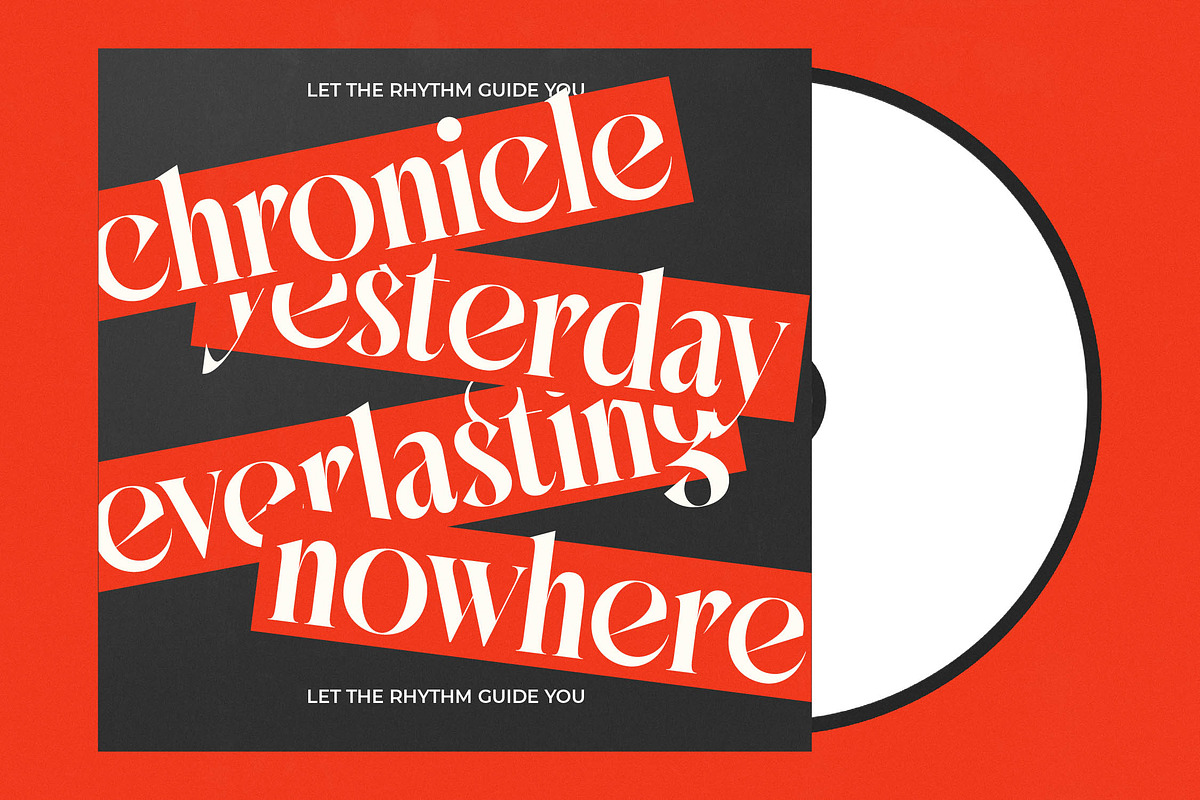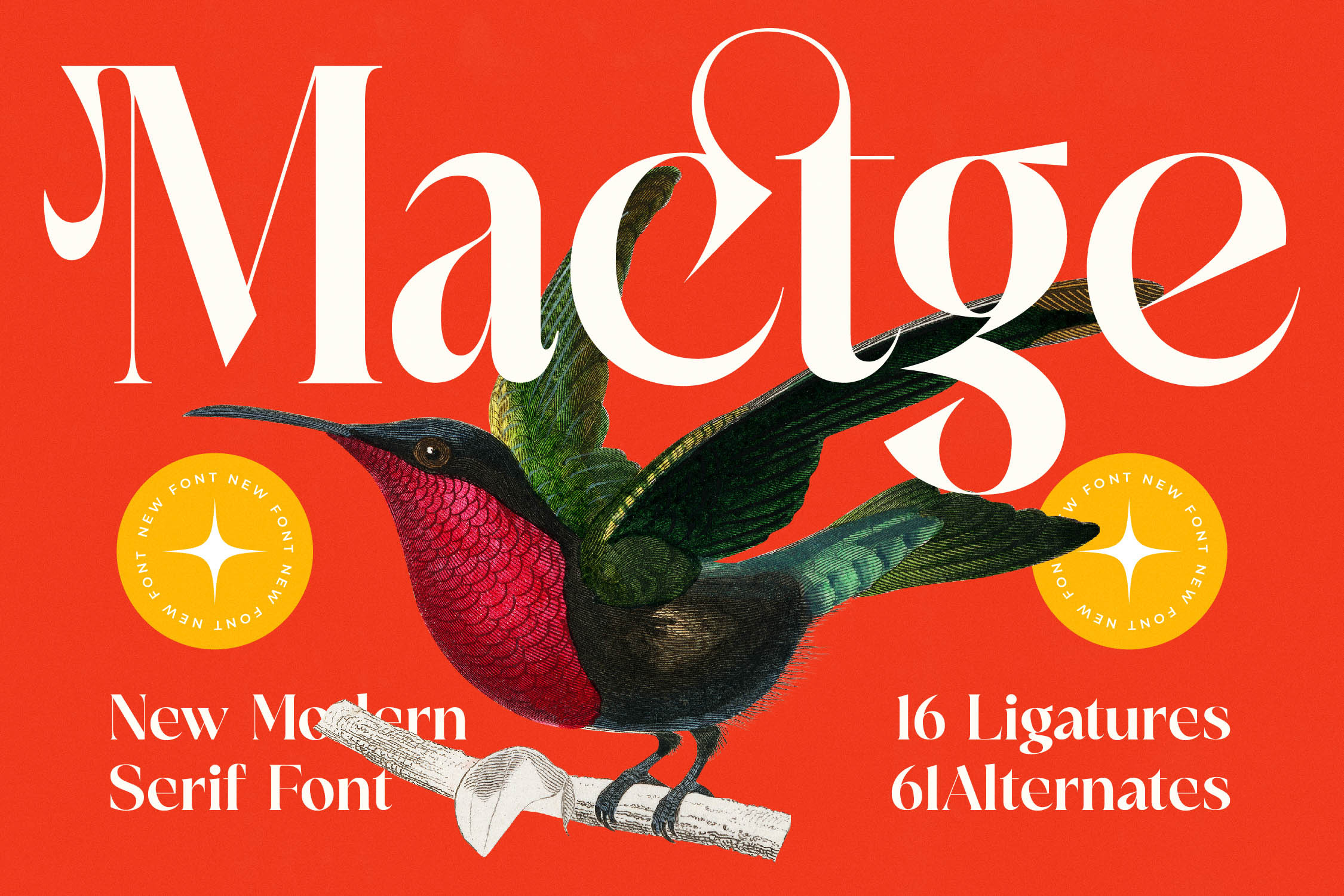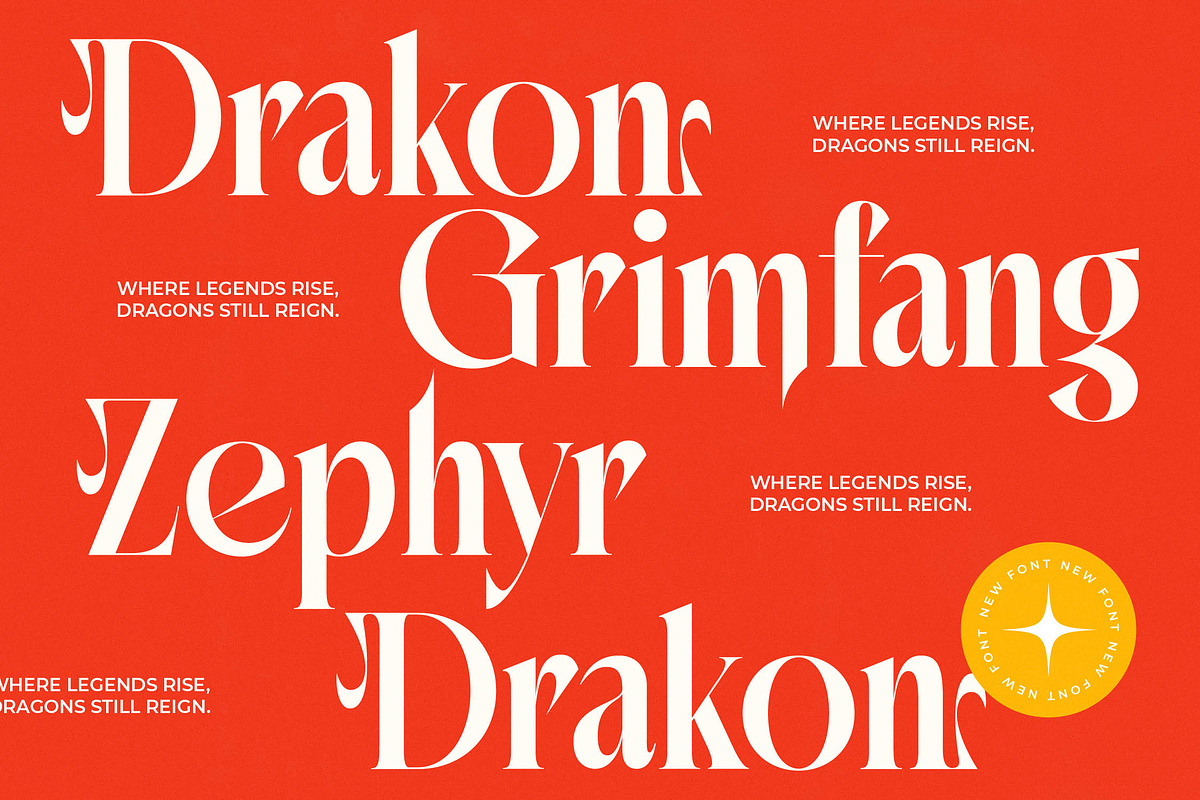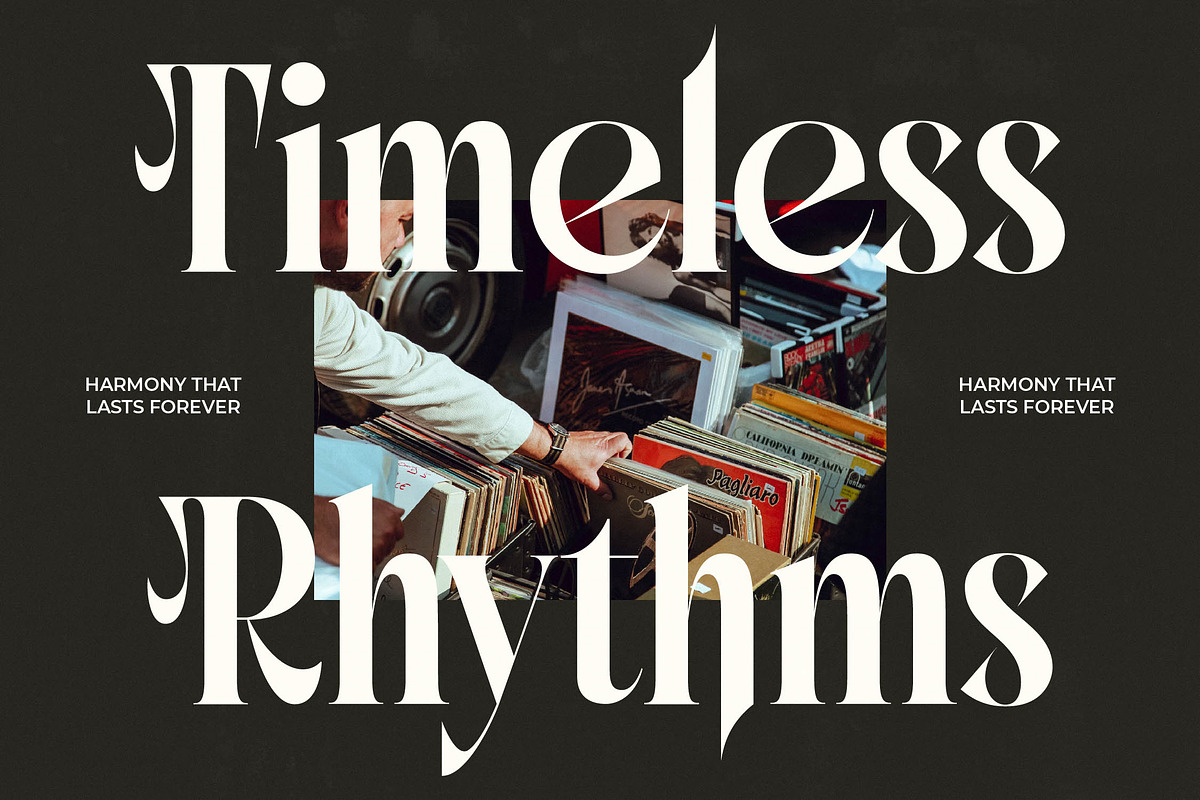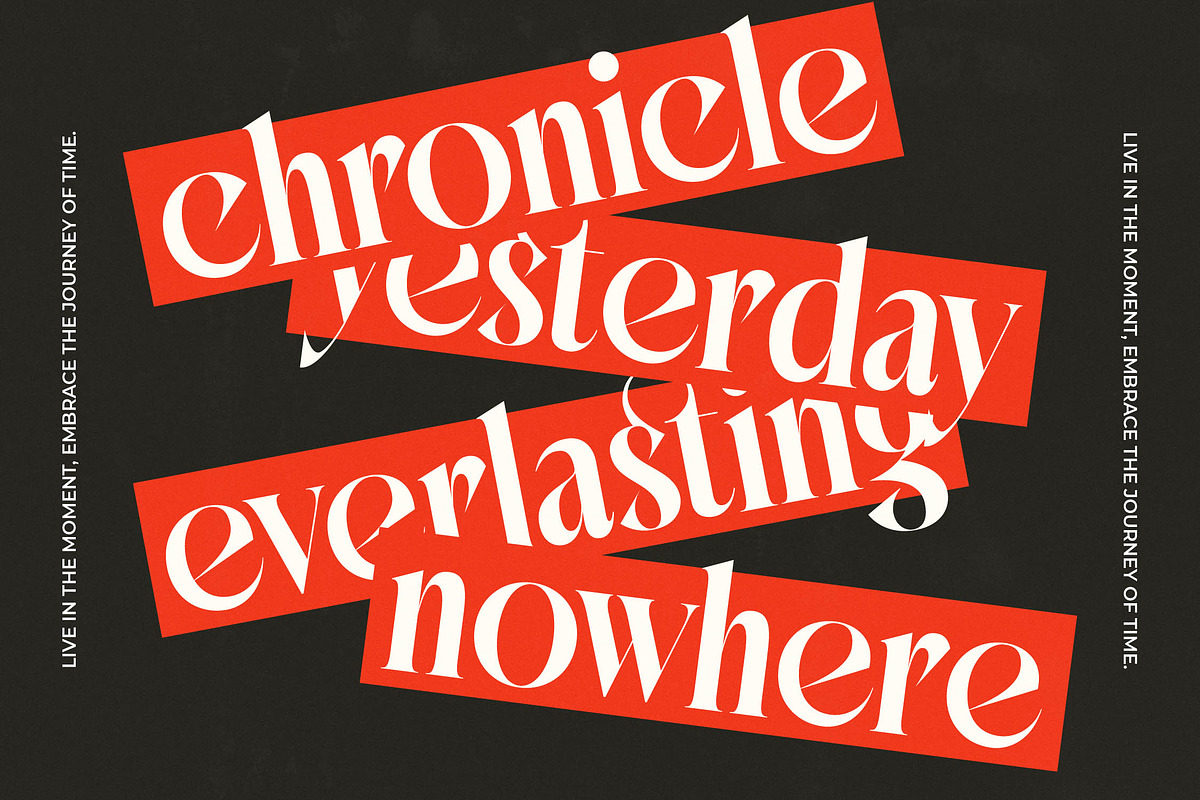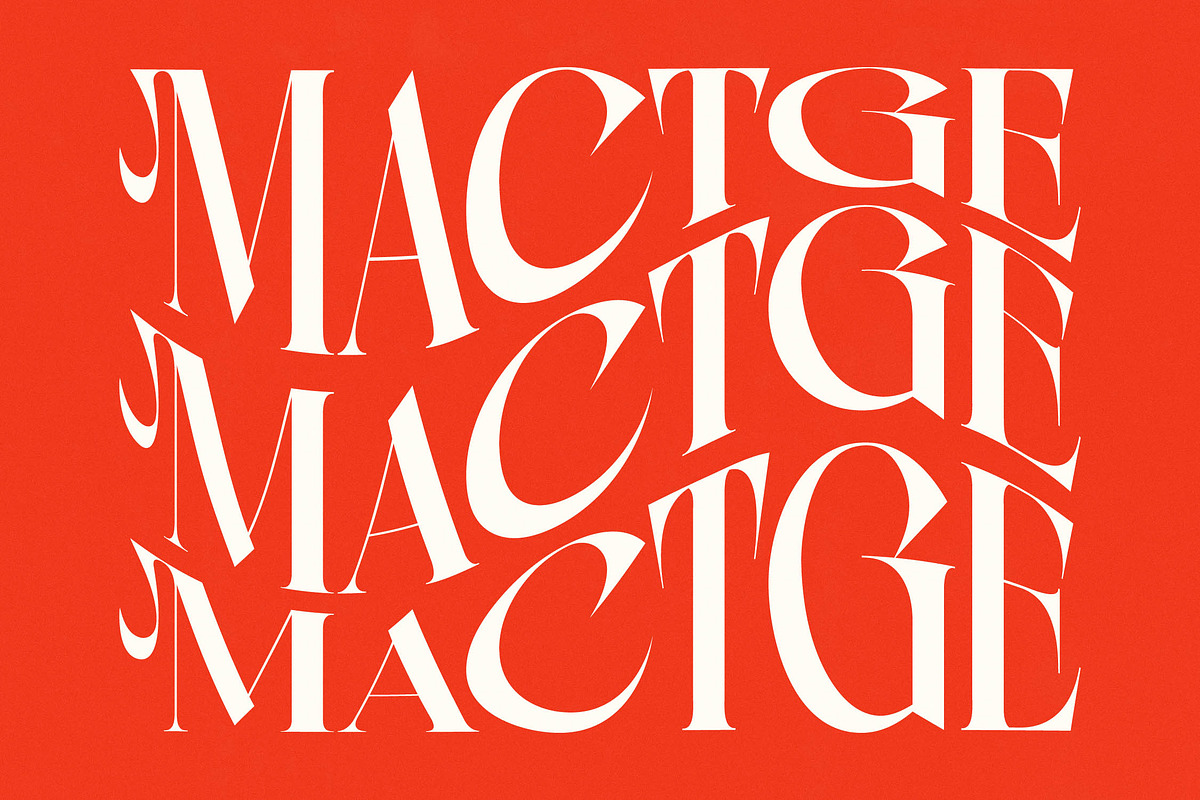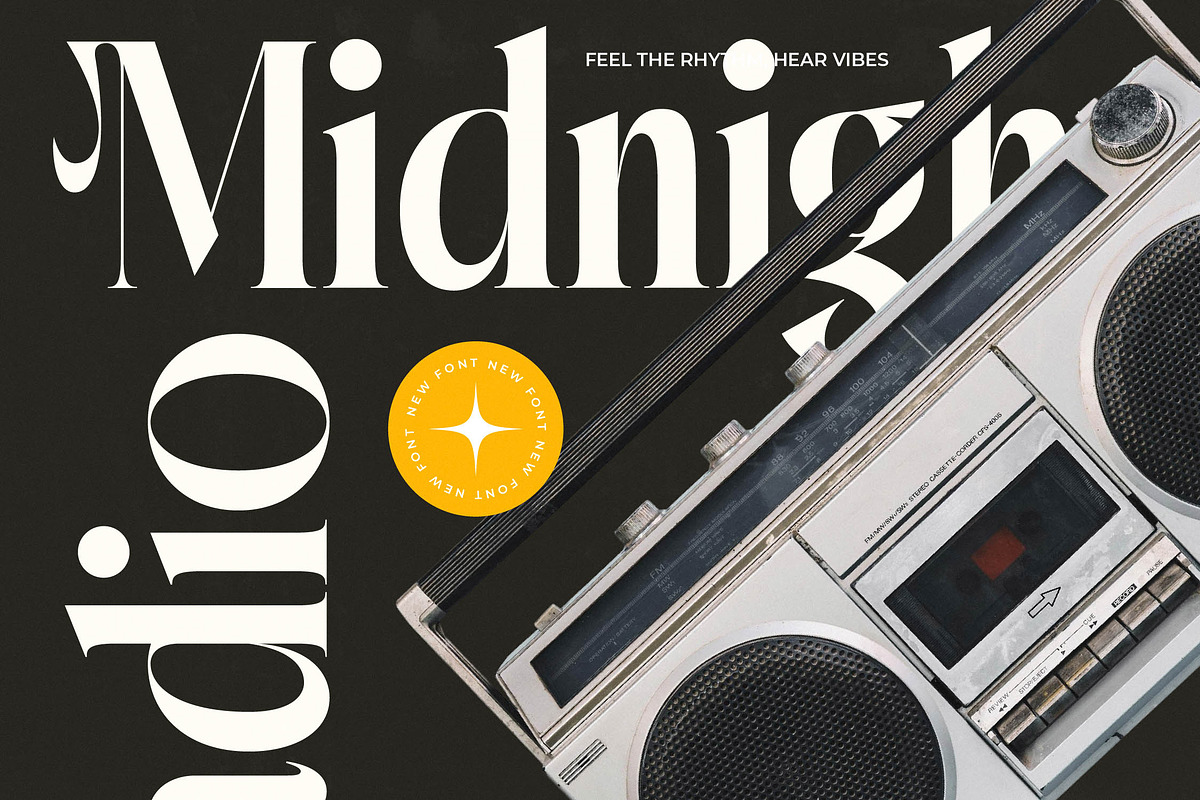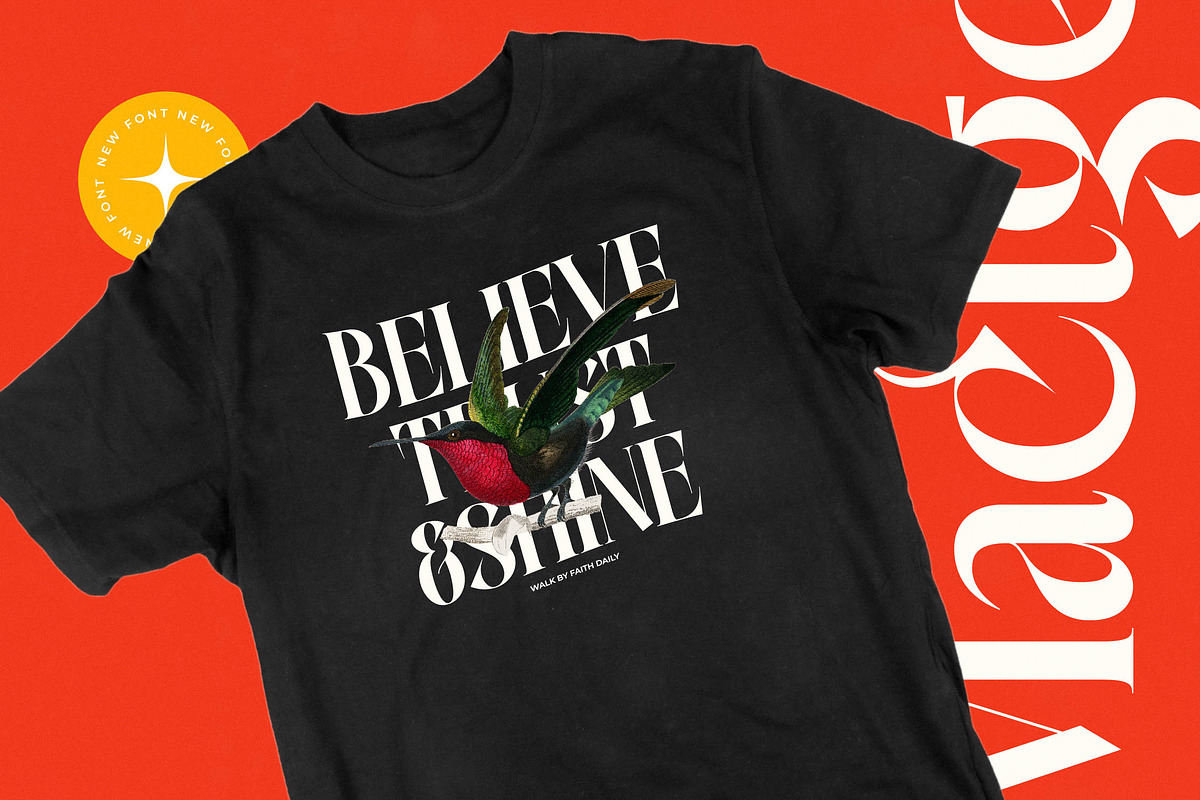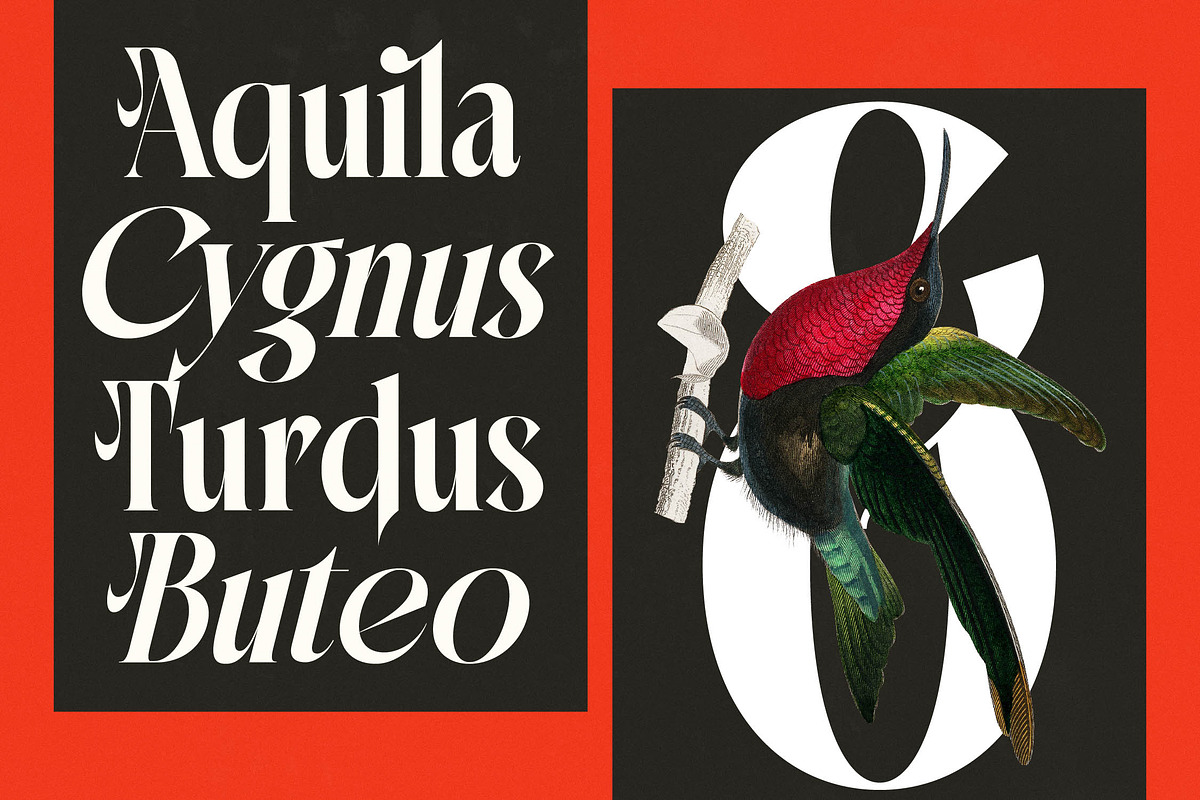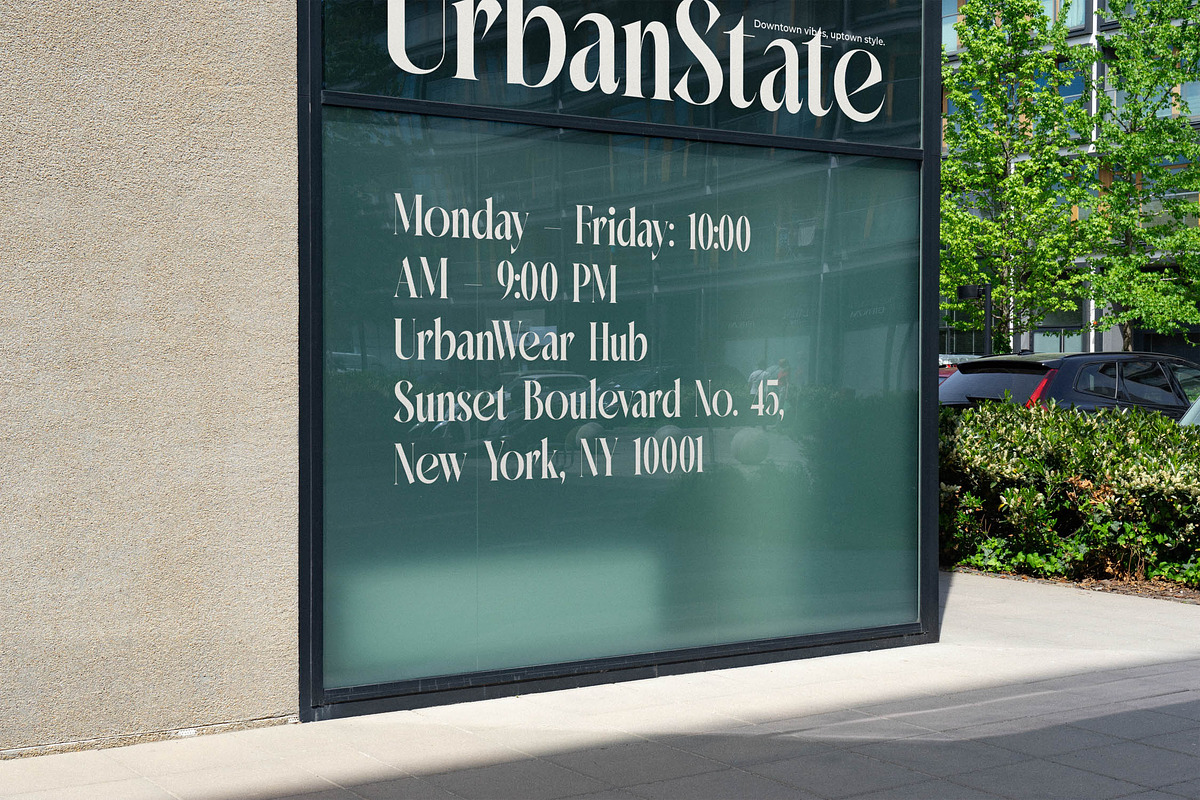
Mactge Modern Serif Display Font
Elevate your creative vision with Mactge, a masterpiece of contemporary type design that captures the essence of sophisticated elegance. This typeface is more than just letters; it is a visual statement designed to transform ordinary layouts into extraordinary works of art.
Drawing inspiration from the delicate balance of nature and the sharp precision of modern architecture, this font embodies a botanical grace intertwined with structural strength. The fluid curves and razor-sharp terminals reflect a world where organic beauty meets high-fashion aesthetics.
As a modern serif display, this typeface delivers an unparalleled luxury typography experience that commands immediate attention. Its high-contrast serif strokes provide a rhythmic flow perfect for an editorial font that demands branding impact and timeless appeal.
Riding the wave of the modern serif trend, this collection fits perfectly within the landscape of editorial display fonts that prioritize unique identities. It represents the pinnacle of character-driven typography, offering designers a tool to stand out in a saturated digital market.
This versatile typeface is the ultimate choice for logo design and high-end branding projects that require a touch of class. From sophisticated editorial layouts and luxury packaging to romantic wedding stationery and avant-garde fashion magazines, it excels across all creative mediums.
Unlock a world of creative possibilities with a comprehensive set of ligatures and unique alternates that allow for custom-tailored text. The inclusion of decorative swashes, along with full multilingual support and international characters, ensures your message resonates globally.
- Ligature 16 Alternate 61